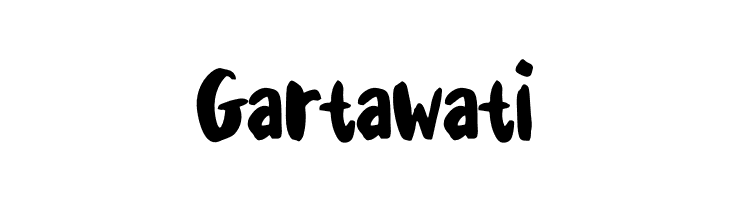
A bold, geometric stencil-style font with a modern industrial feel.
A bold, modern font with rounded edges and a geometric style.
A bold, geometric font with blocky, solid letterforms and sharp angles.
A bold, decorative font with geometric and sharp serif elements.
A dynamic, gradient italic font with a futuristic and speedy appearance.
A playful, elegant handwritten font with modern loops and smooth curves.
A playful, casual handwritten font with smooth curves and a friendly appearance.
A playful and bold font with a whimsical, irregular design.
A playful, handwritten font with a casual and friendly style.
A bold, brush-textured font with jagged strokes and a dynamic, edgy style.
设计师偏爱 SEPAGAN Regular, XForce Bold, TheGoFont, Maroon Bold and Speed Phreak Gradient Italic,因为其造型干净、适用范围广—— 从品牌识别到落地页、海报都能胜任。